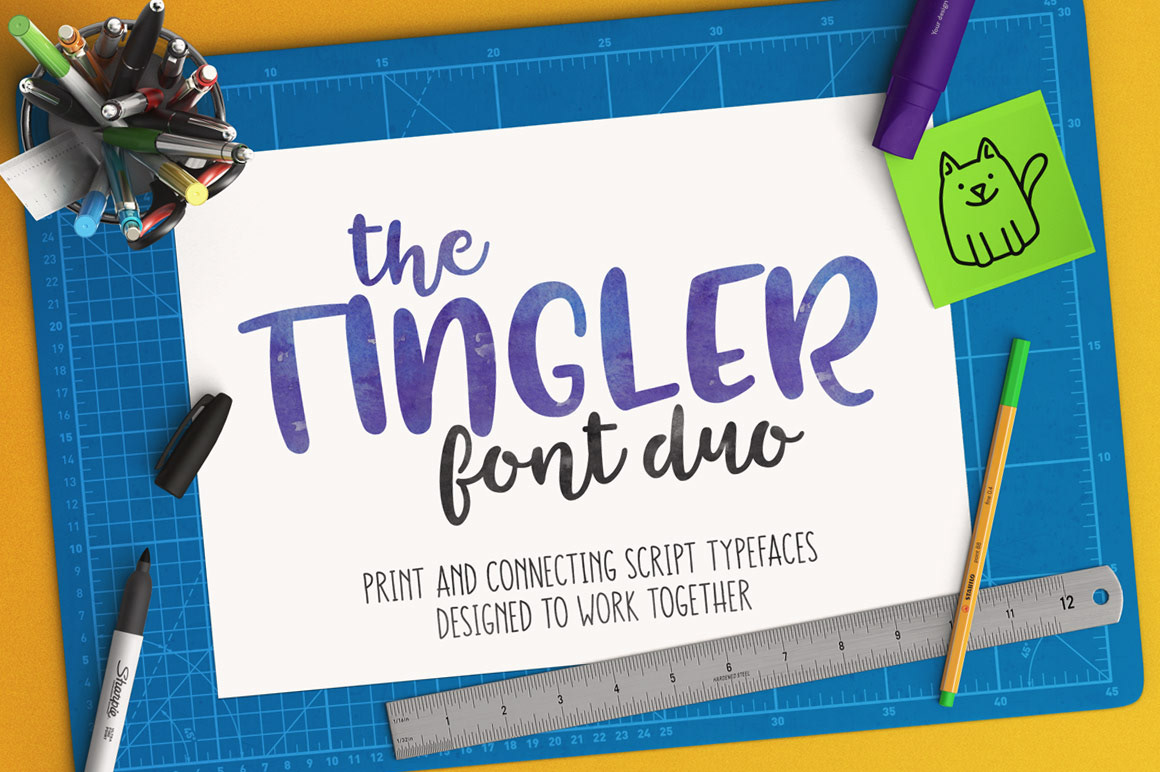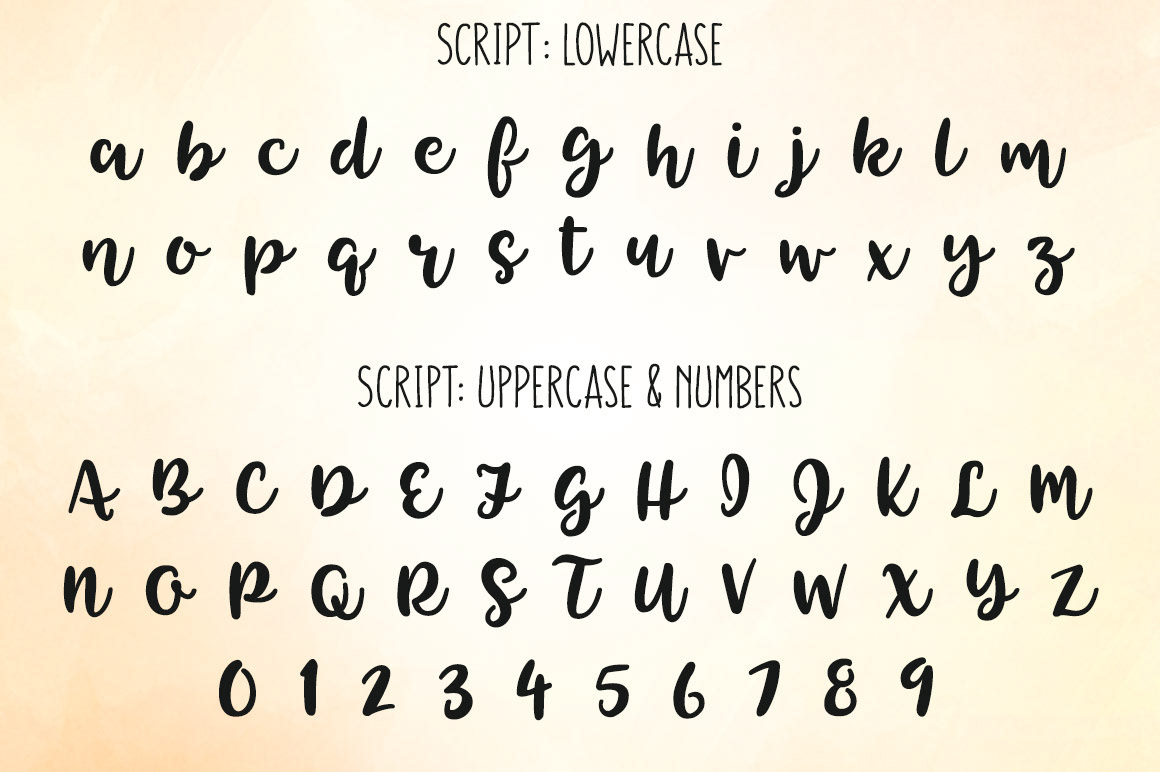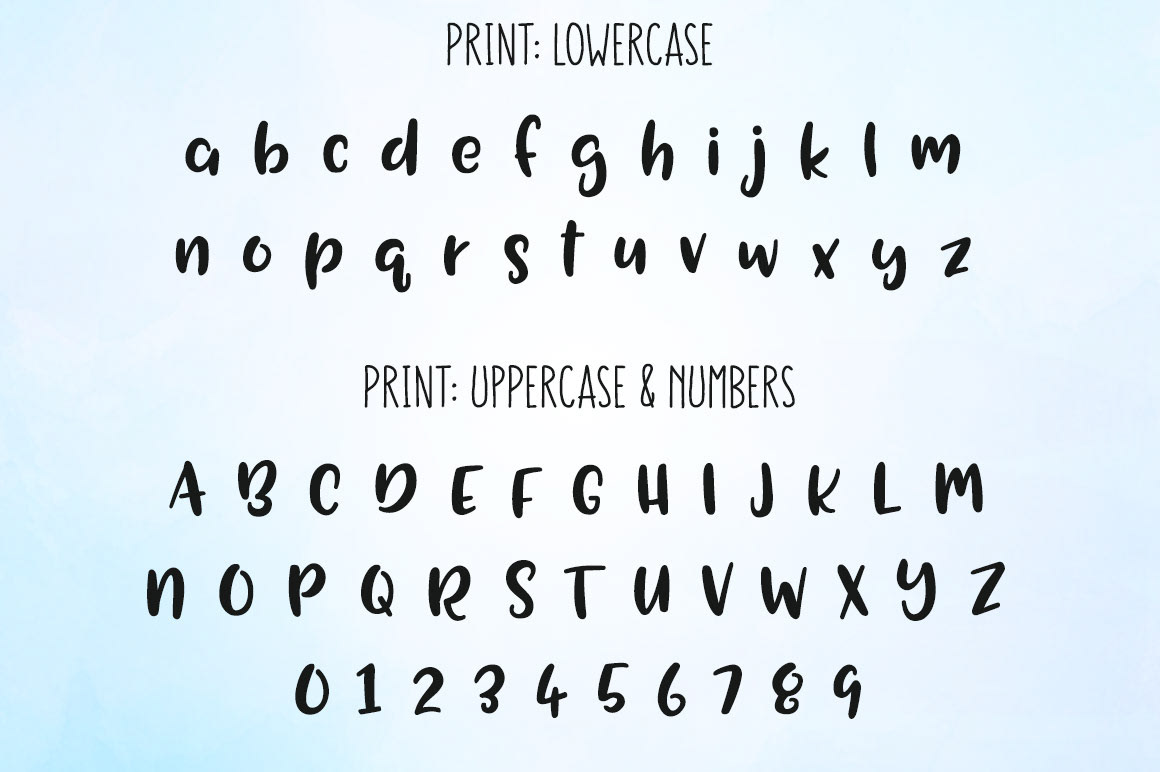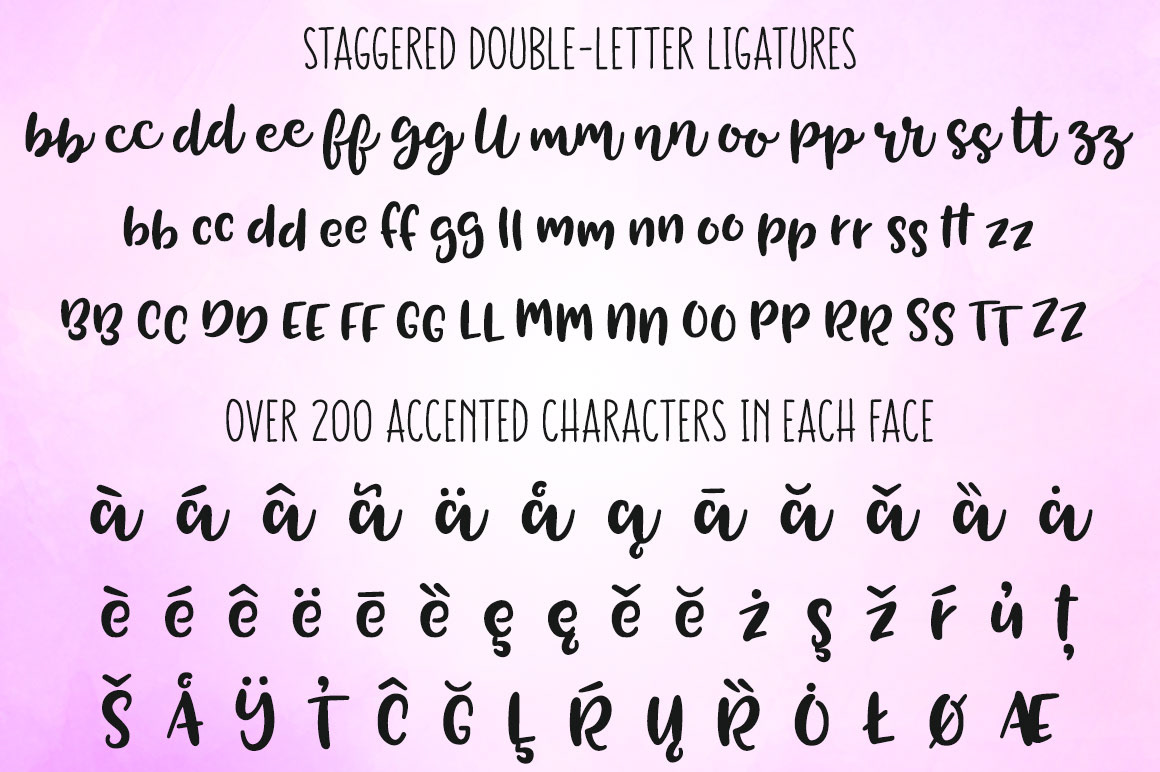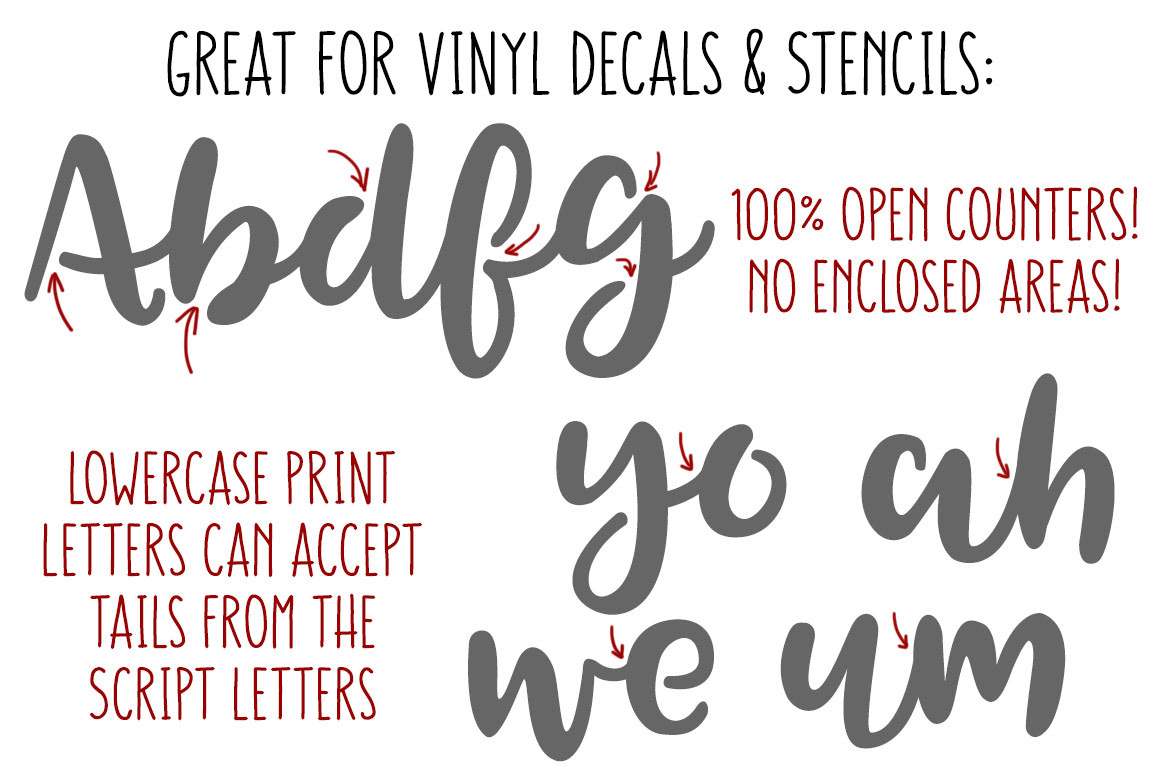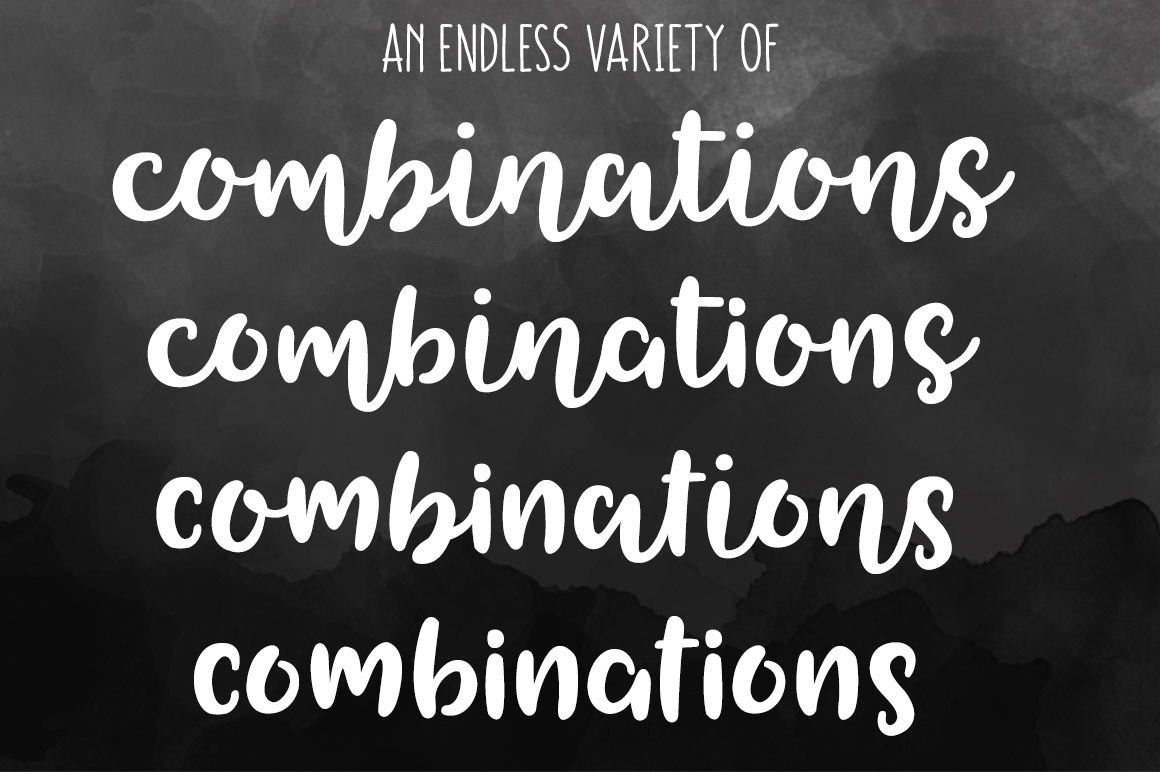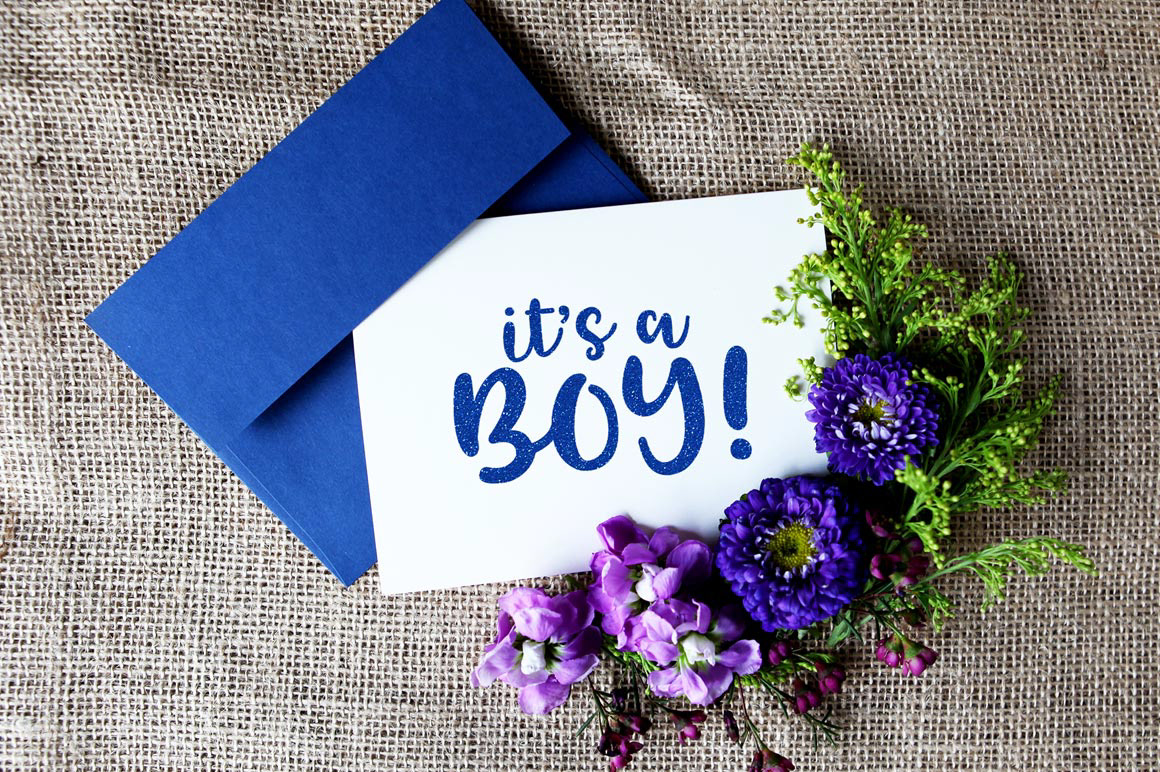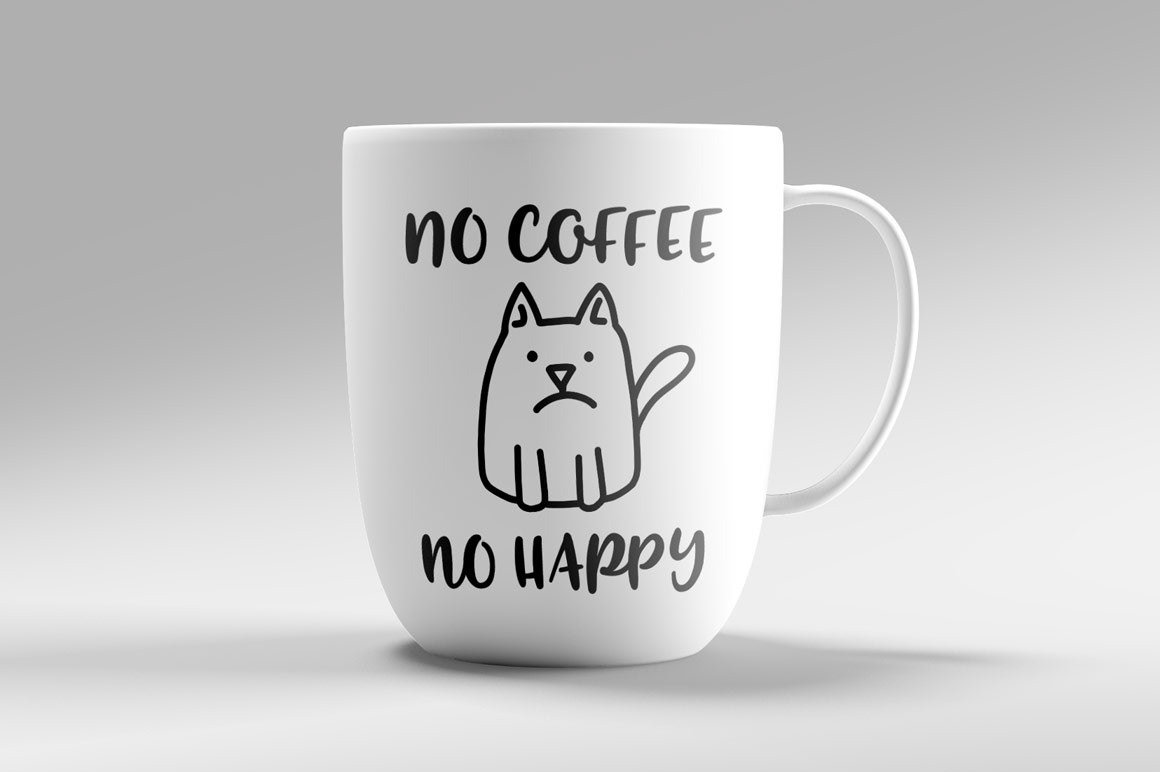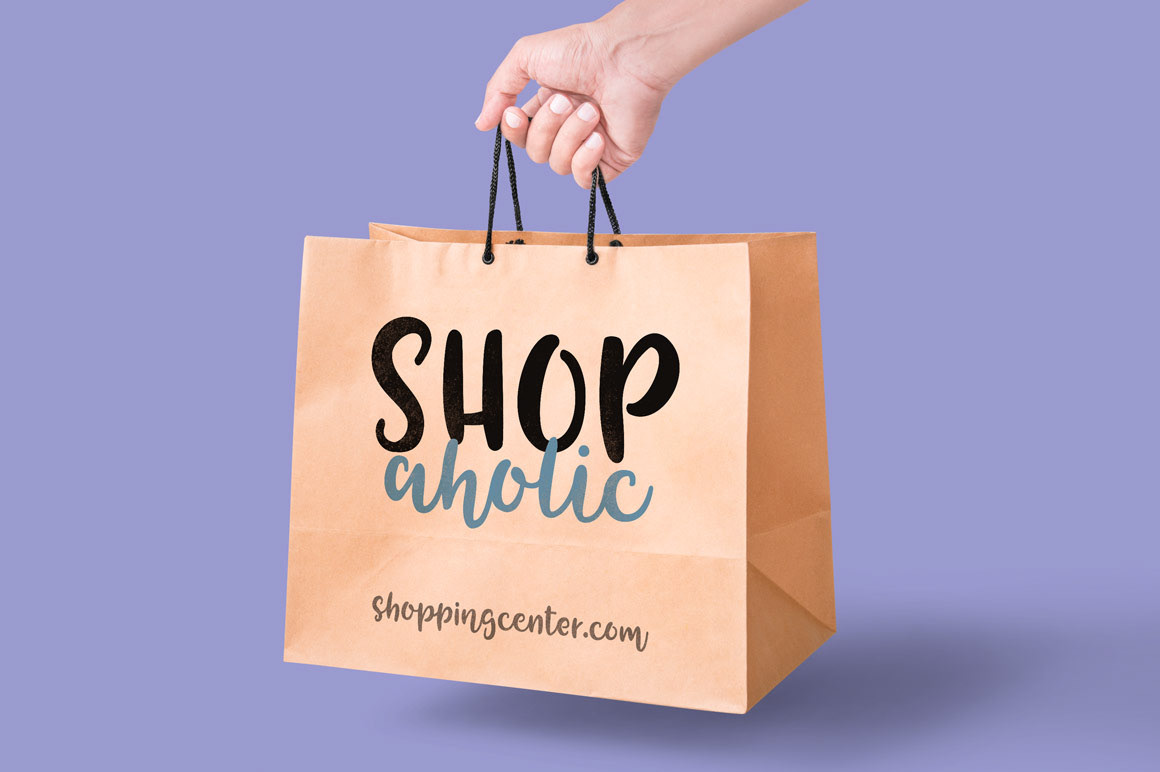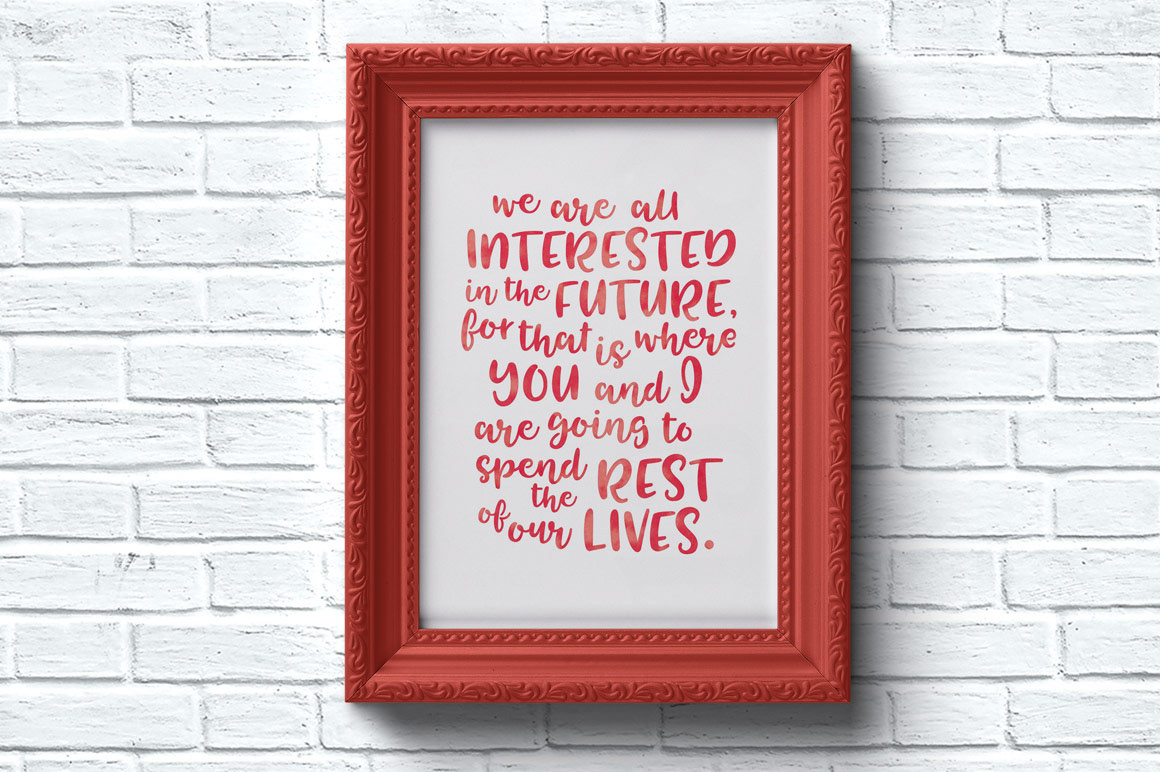
Introducing the Tingler font duo!
The duo includes Tingler Script, a connecting handwritten script typeface, and Tingler Print, a printed handwritten script typeface. The two Tinglers were created side-by-side to work together. All lowercase letters in Tingler Print are situated to accept the connecting tails from Tingler Script. You can mix and match within the same word to your heart's content!
The Tingler duo was also built with crafters in mind: there are no closed counters in either typeface, which means they can be easily used for stencils and electronic cutters like the Cricut and Silhouette lines.
* Almost 700 glyphs in two fonts, designed to work together!
* No closed counters - handy for stencils and vinyl!
* Over 200 accented characters in each font, to support: English, French, Spanish, German, Polish, Romanian, Portuguese, Swedish, Finnish, Norwegian, Danish, Esperanto, Czech, Dutch, Welsh, Filipino, Turkish, and more!
* Staggered double-letter ligatures for a hand-drawn look!